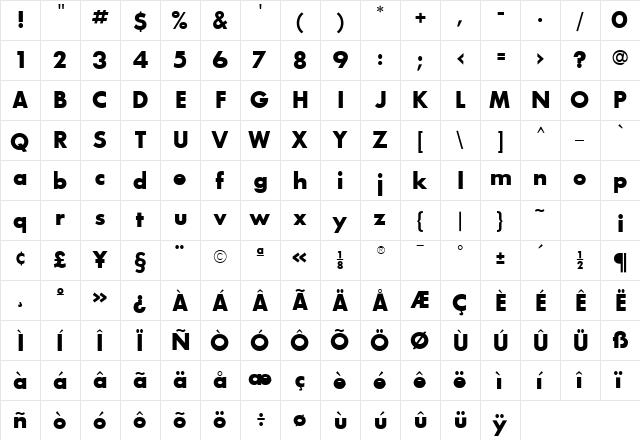
Bougan Black SSi Bold
Design Context for Bougan Black SSi Typeface
Bougan Black SSi is a composed and adaptable typeface that performs quietly and consistently across a wide range of design contexts. The heavy weight commands attention and anchors typographic hierarchies.